In at this time’s aggressive job market, even the smallest particulars can influence your success. One such element is the font utilized in your resume. It can’t solely spotlight your professionalism but additionally affect the general notion of the doc.
What font ought to be utilized in a resume? How does font selection have an effect on resume high quality, and what standards do you have to contemplate when deciding on one? Which fonts do you have to completely keep away from for resumes and why? We’ve lined all these nuances in this text and ready a assortment of the very best resume fonts for 2025. We’ll discover good fonts for resumes and clarify why your font selection issues.
The Position of Font in a Resume: How Font Impacts Notion
Font is the very first thing a recruiter sees when opening your resume file. First impressions rely on how readable, acceptable, and visually pleasing it is. Even when the content material is wonderful, an unsuitable font could make it look messy or troublesome to learn. The readability of your font instantly influences how a lot time recruiters spend reviewing your doc and, consequently, their general impression of you as a candidate.
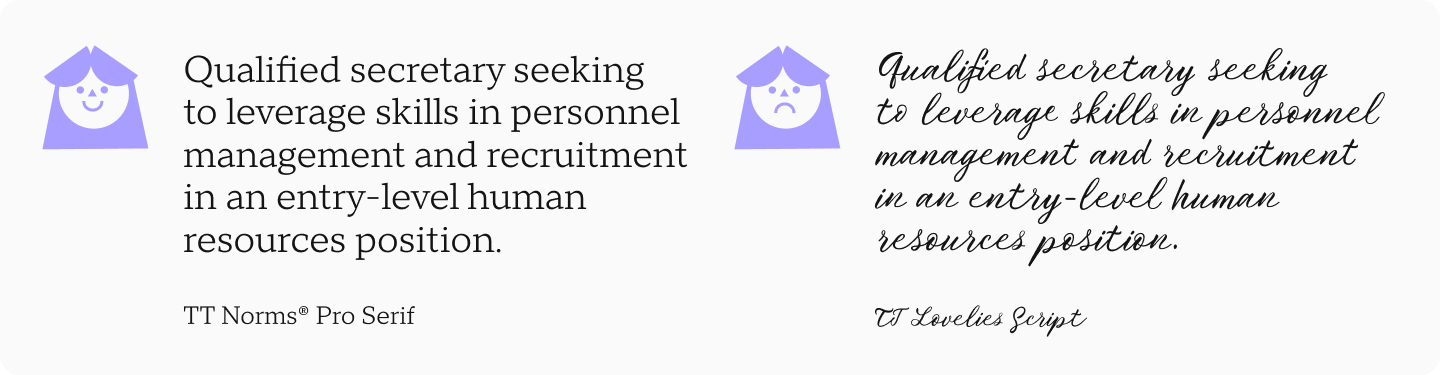
What Makes a Font “Greatest” for a Resume
The most effective font isn’t essentially probably the most stunning or stylish. What issues most is its appropriateness for the precise scenario. The best selection for a resume is a impartial, visually balanced font with a calm, moderately severe character.
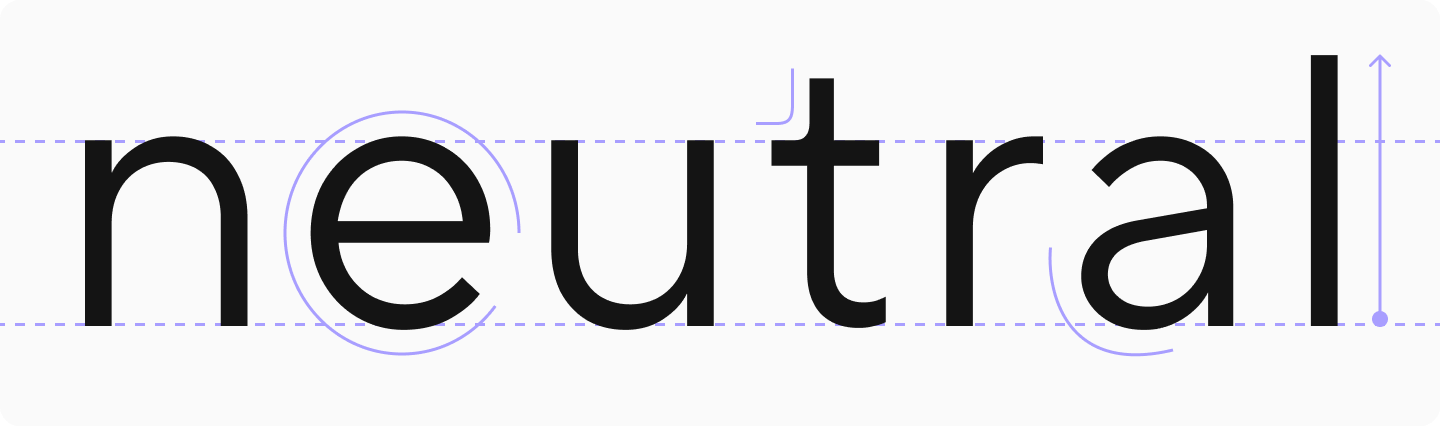
Good fonts for resumes assist construction info and make it simpler to course of. It makes your resume look trendy with out being flashy, fashionable with out being overloaded.
Now let’s discover easy methods to select the appropriate font.
Correctly Select a Resume Font: Essential Standards
Readability and Legibility
Legibility and readability are crucial traits of a correct resume font that deserve major consideration. Legibility refers to the readability and precision of particular person characters. Readability is how simply your complete textual content may be perceived, which relies on how the characters work together with one another.
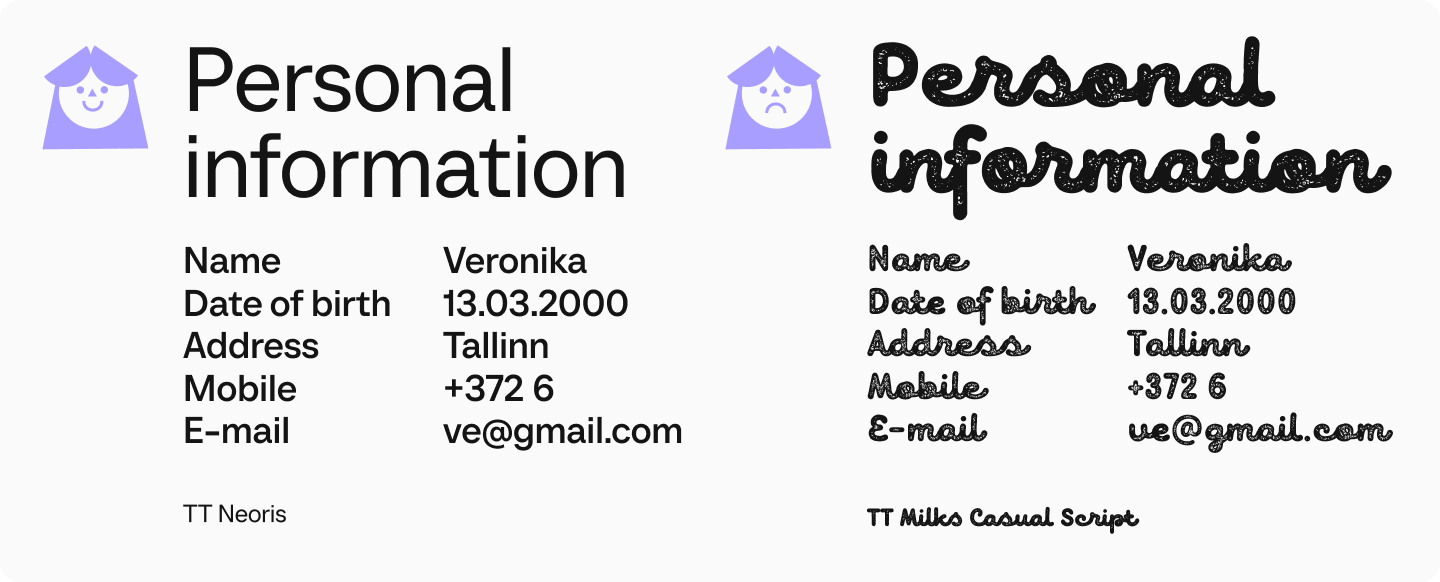
A readable font is concise, with out pointless particulars or ornamental parts. Most frequently, probably the most readable fonts and kinds have easy contours, medium thickness and width of characters, and impartial letter spacing.
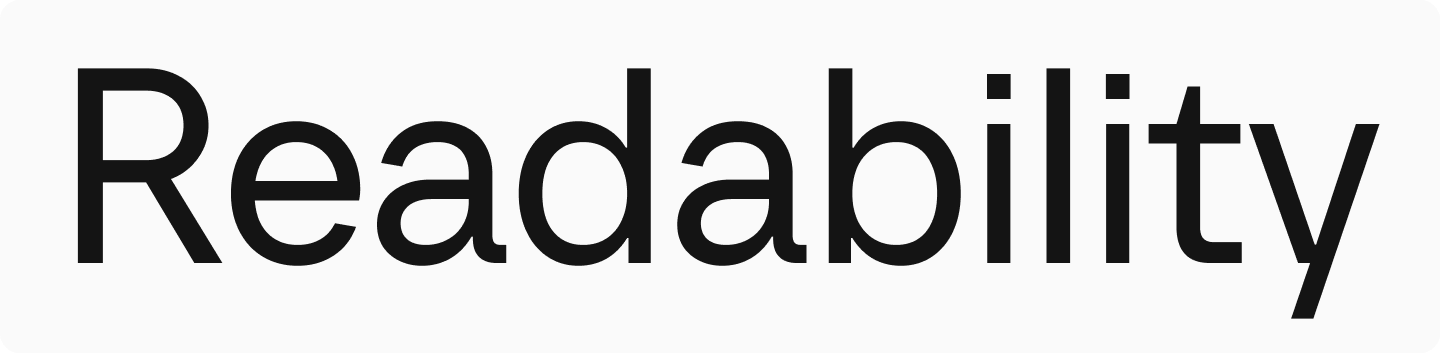
Neutrality and Seriousness
When requested what font ought to a resume be, we can confidently reply — acceptable. You would possibly like some fonts for his or her artistic facets, daring character, or uncommon design. Nevertheless, for a resume to have the correct look, it’s higher to use solely these choices that convey a sense of seriousness and professionalism. Keep in mind that your font’s principal activity is to convey info as clearly as doable, to not draw consideration to itself.
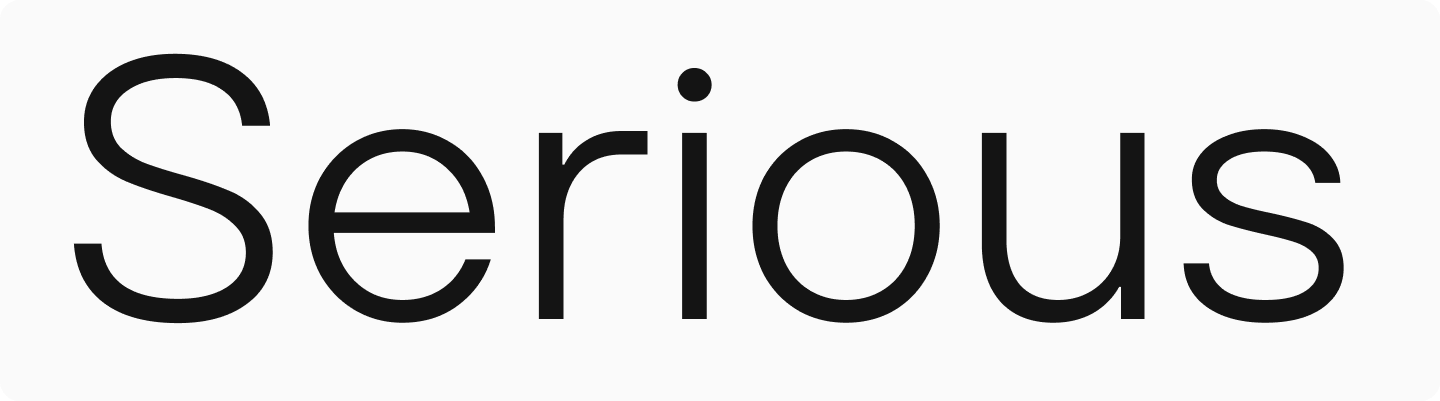
High quality
The font ought to be of ample high quality to show properly in totally different applications and on any system, with out distortion or lack of readability when altering display scale or printing. Subsequently, select trendy, confirmed fonts. For instance, all TypeType fonts are often up to date and meet all trendy necessities.
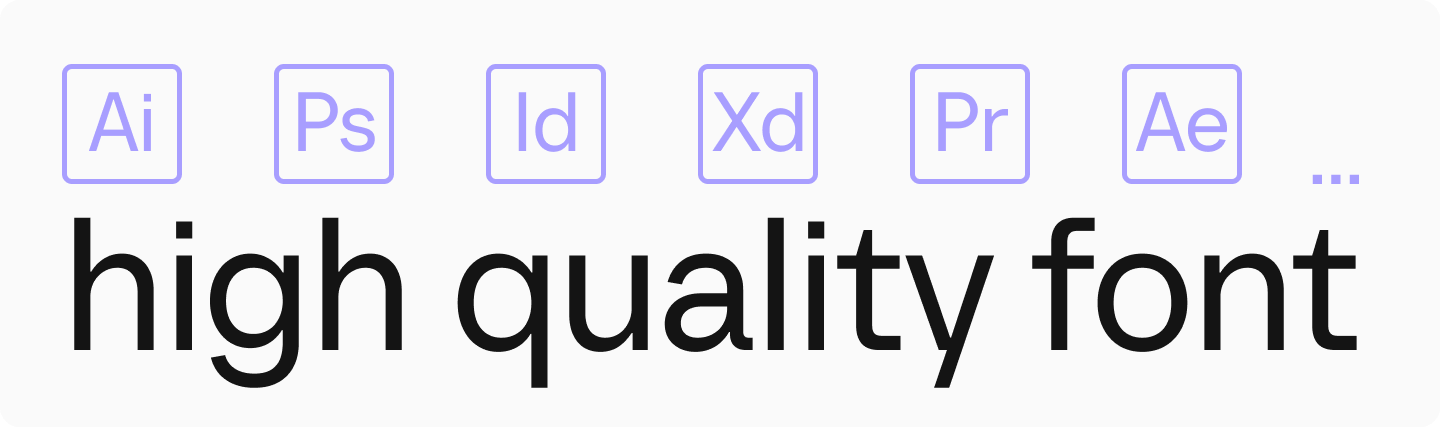
Greatest Fonts for Resumes: Overview
In this assortment, we’ve gathered the popular fonts and font pairings for resume design from the TypeType assortment. They meet all of the above standards and are appropriate for each principal textual content and headings.
TT Norms® Professional + TT Norms® Professional Serif
TT Norms® Professional is a useful and aesthetic geometric sans serif, an absolute bestseller from the studio. It’s legible, impartial, and restrained, making it excellent for the principle textual content in a resume. At the identical time, it’s fashionable sufficient that when utilized in a barely bigger measurement or weight, it helps spotlight vital factors.
And if you need to make headings extra noticeable with out overloading your resume, the calm and stylish Antiqua TT Norms® Professional Serif involves the rescue. It was developed based mostly on TT Norms® Professional and harmonizes completely with it.
TT Commons™ Professional + TT Ramillas
TT Commons™ Professional is a geometric sans serif and one among the studio’s hottest fonts. Common and trendy, it received’t draw pointless consideration to itself, making textual content straightforward to learn whereas giving your resume a present and contemporary look. This font meets all customary necessities for skilled resume presentation.
To improve headings, you’ll be able to pair it with the trendy serif TT Ramillas, which appears to be like trendy and impartial however helps make your resume extra prestigious.
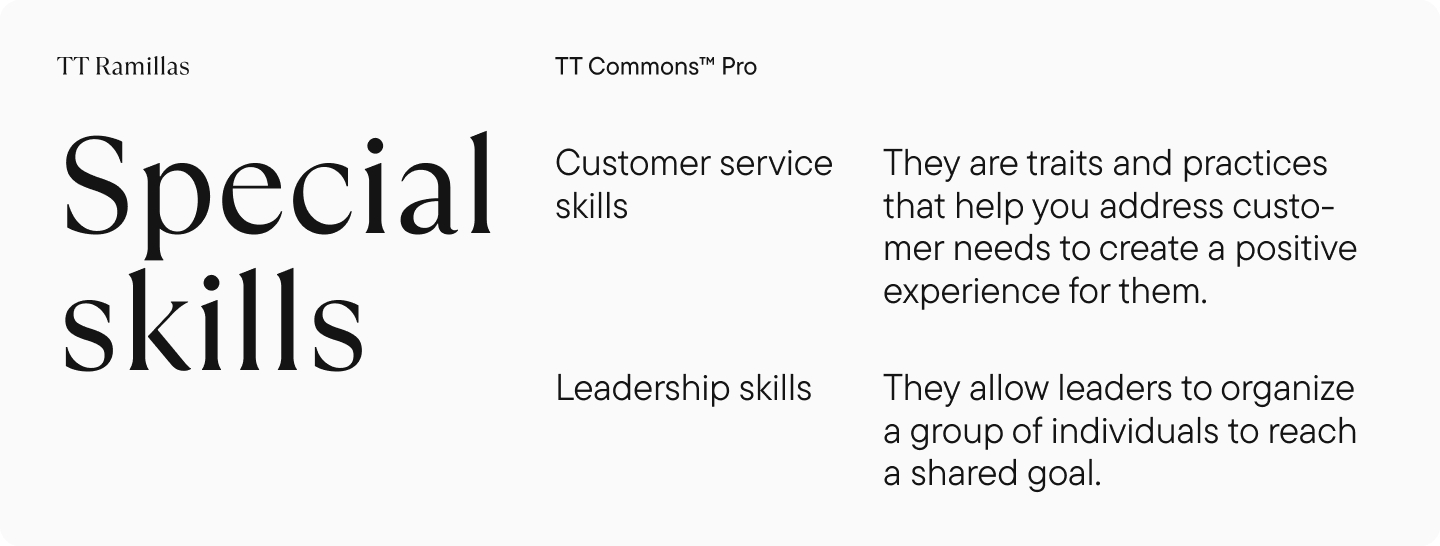
TT Hoves Professional
TT Hoves Professional is a Scandinavian sans serif with a impartial but recognizable character. It’s dominated by horizontal and vertical traces, making the design minimalist and classy. It shall be straightforward to learn in the principle textual content and look spectacular in headings.
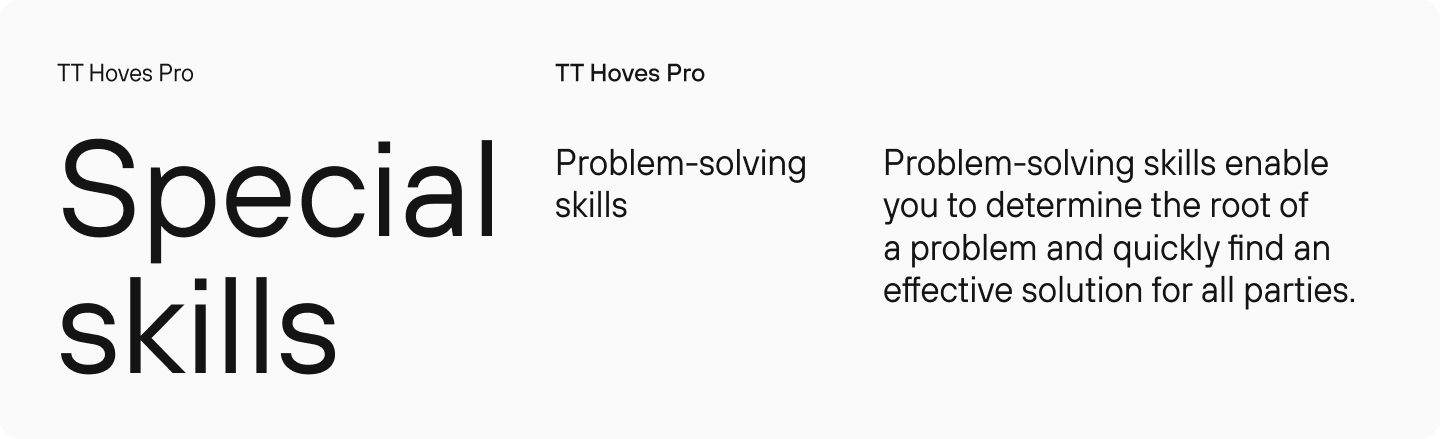
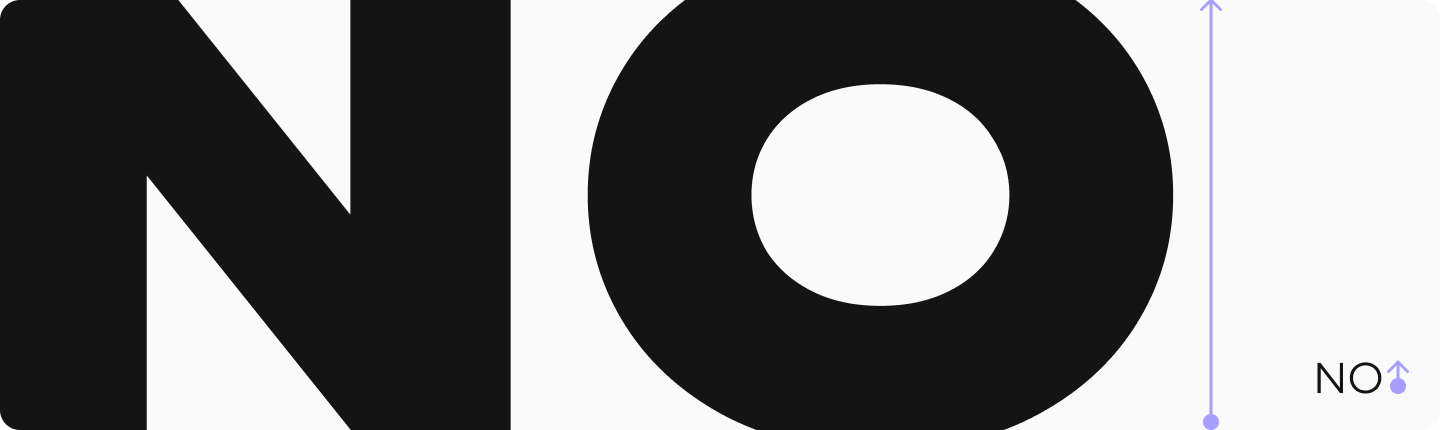
Utilizing Too Many Fonts in One Resume
Don’t get carried away with formatting your resume with totally different fonts and kinds. It’s optimum to use one, most two fonts: first for headings, second for physique textual content. Utilizing extra makes the doc visually chaotic and loses construction.
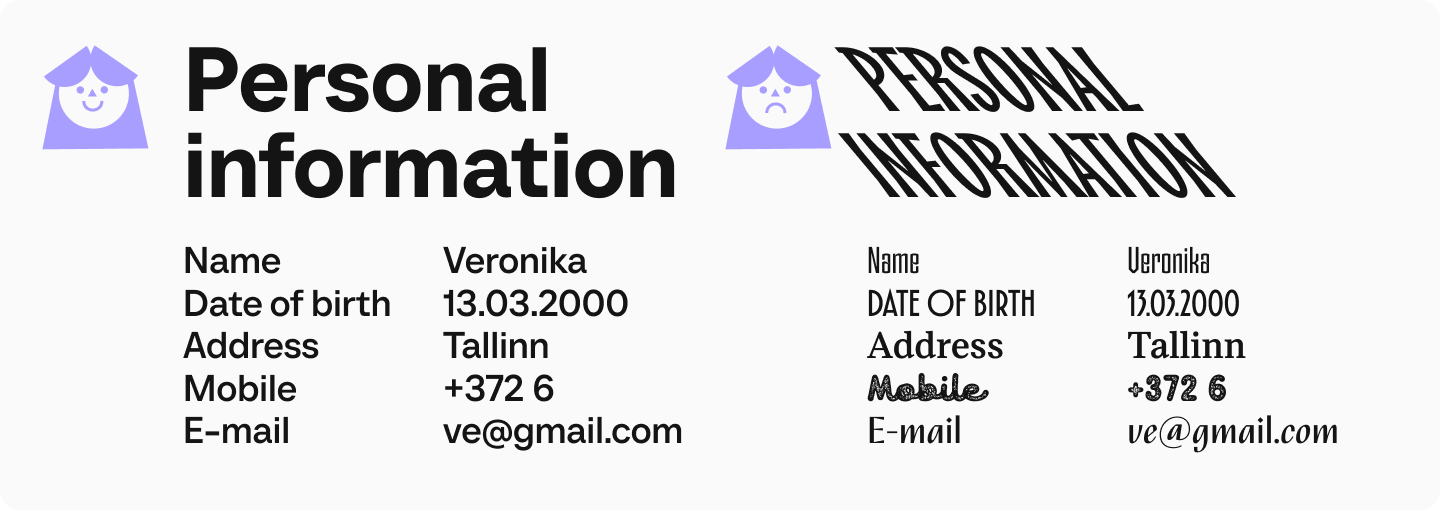
Conclusion
As you’ll be able to see, the font you select on your resume issues a nice deal. We hope our recommendation helps you choose the appropriate possibility. Good luck!